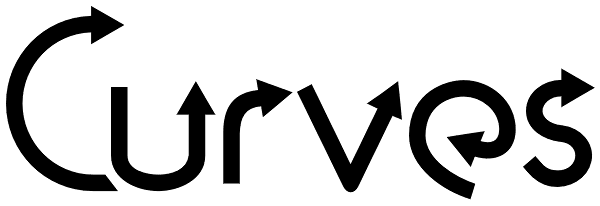
Curves
Be it a blessing or a curse, when a type designer sees a shape that could be interpreted as a letter, his/her mind is off and running. My parents loved to travel; Dad drove to Florida seven different years, winding on (barely) two-lane “highways...